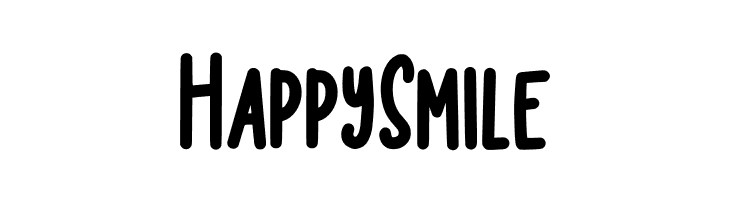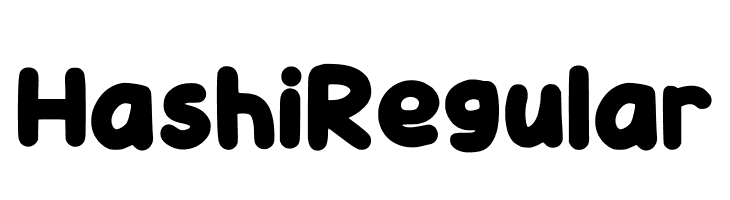
( Fonts by FatmaStudio )
A playful, bold font with rounded, thick strokes and a hand-drawn feel.
( Fonts by Fanastudio )
A playful, handwritten-style font with bold, slanted uppercase letters and rounded lowercase characters.
( Fonts by Jipartsy Jips )
A playful, rounded font with bold, thick strokes and smooth curves.
( Fonts by Aaron Amar )
A playful, hand-drawn font with bold, uneven strokes and a whimsical style.
( Fonts by Hendy Murti Sagita Pratama )
A playful, hand-drawn font with an energetic and whimsical style.
( Fonts by Garisman Studio )
A bold, playful handwritten font with an energetic and casual style.
( Fonts by Alpaprana Studio )
A playful handwritten font with smooth, flowing characters and a casual vibe.
( Fonts by Creatype Studio )
A bold, playful font with a distressed, vintage texture.
( Fonts by Bolphen Studio )
A playful, bold, and hand-drawn style font with rounded characters.
( Fonts by www.vicfieger.com )
A bold, rounded font with a playful and modern style.